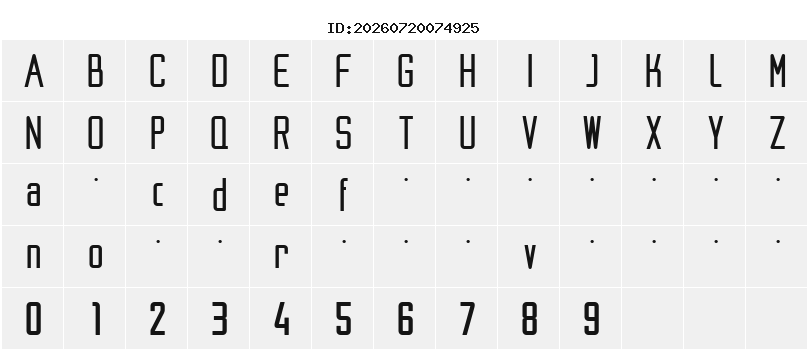
Nike 200204.ttf is a modern, elegant sans-serif font designed for ultimate readability and visual harmony. Perfect for branding, headlines, web design, and print materials.